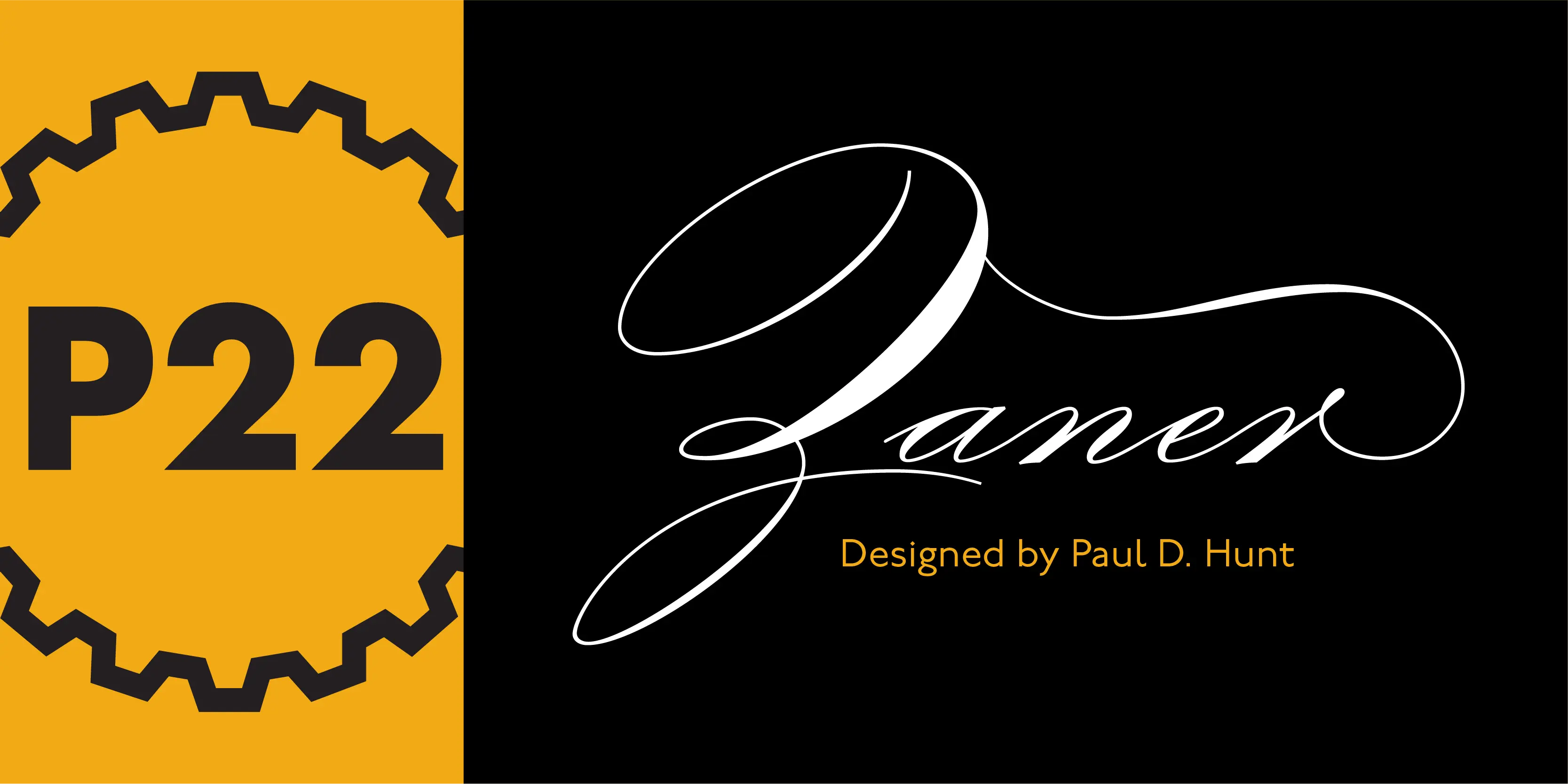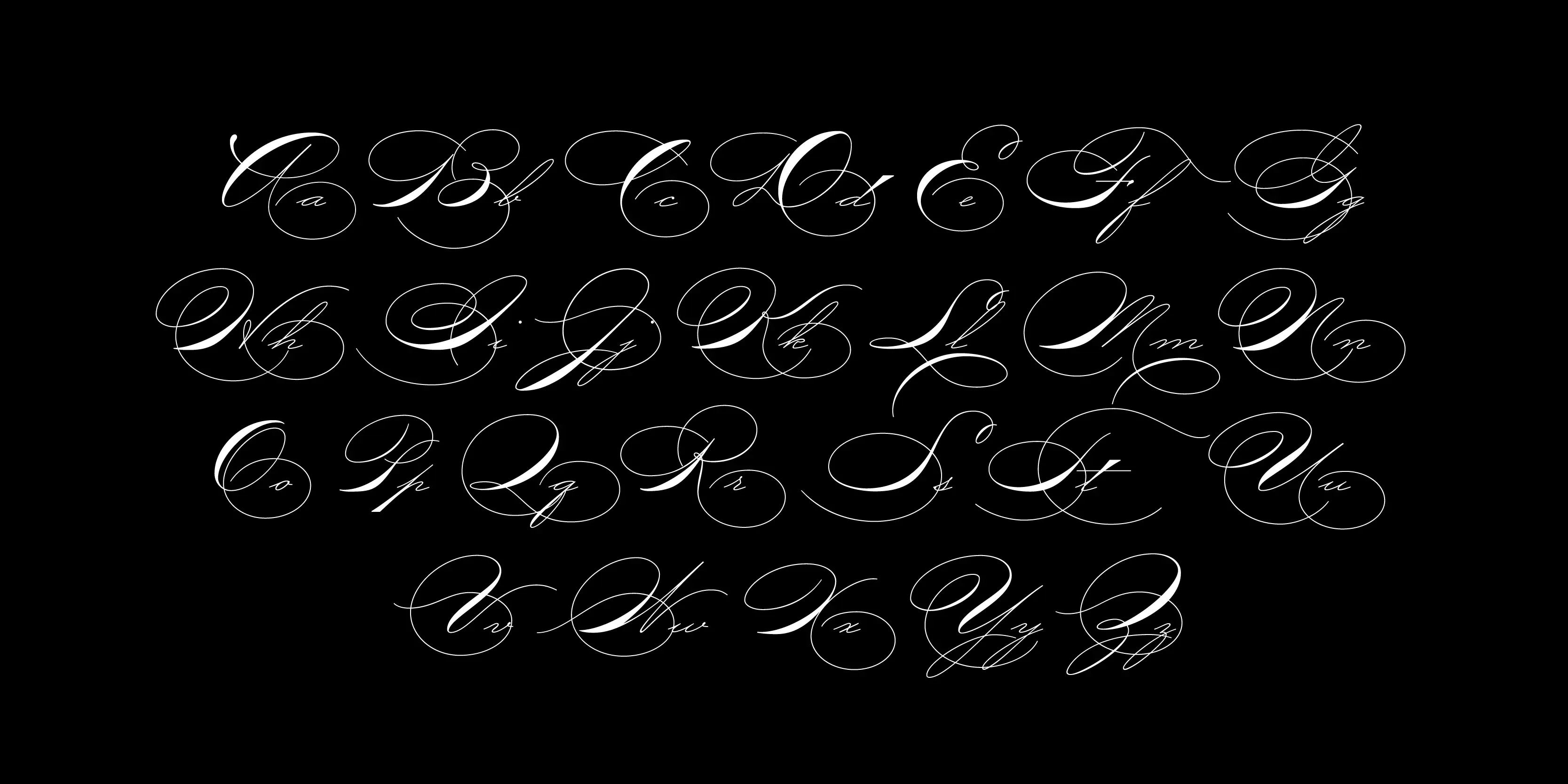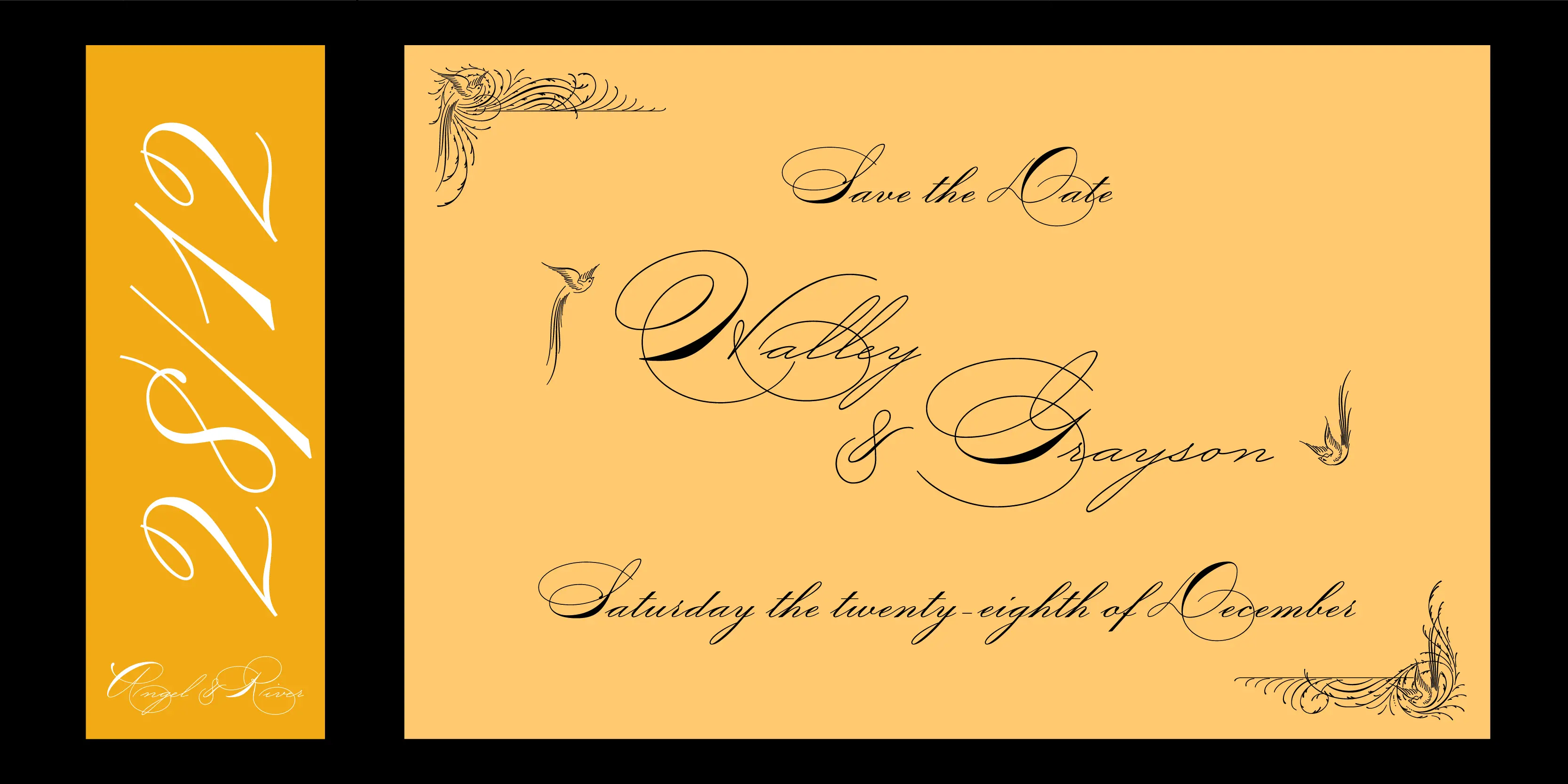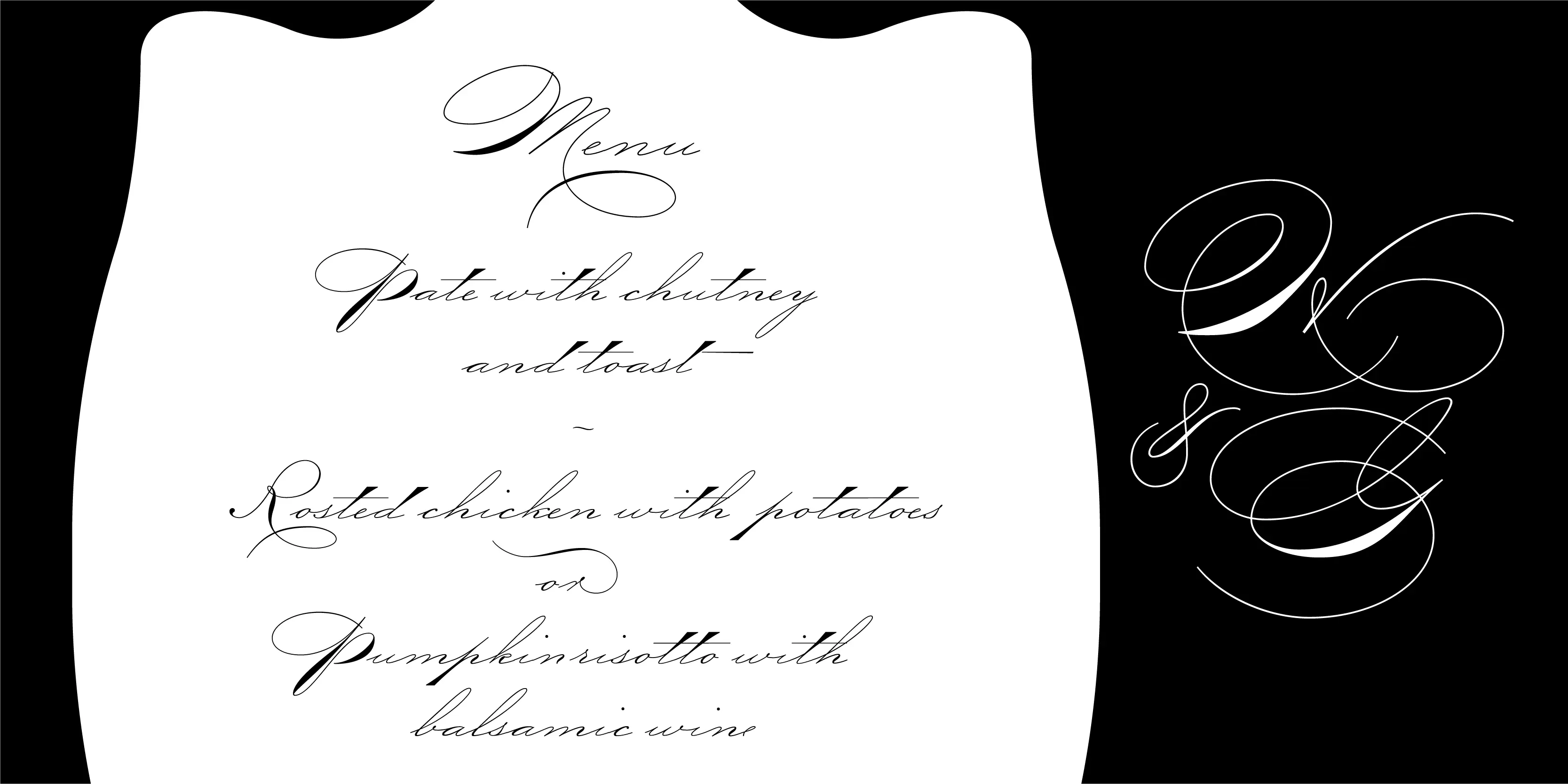
Zaner Font Family
Zaner
P22 Zaner is based on ornamental penmanship from the the turn of the 20th century. The P22 Zaner Set includes four unique fonts that complement the other fonts in the set plus P22 Zaner extras. Those using OpenType applications may prefer the expansive pro styles and Pro Set which offers more options and a total of over 3,000 characters. P22 Zaner is perfect for wedding invitations and documents that require a touch of elegance.